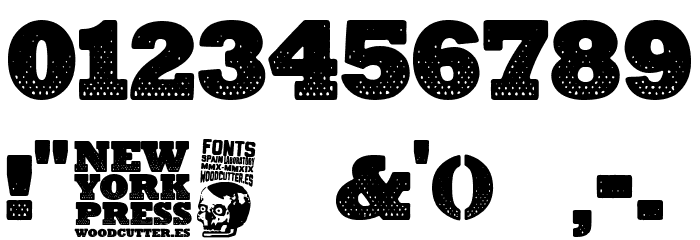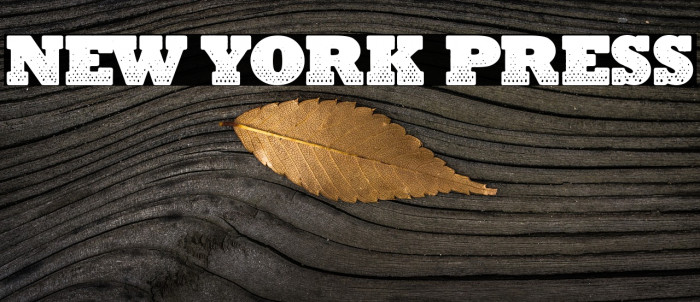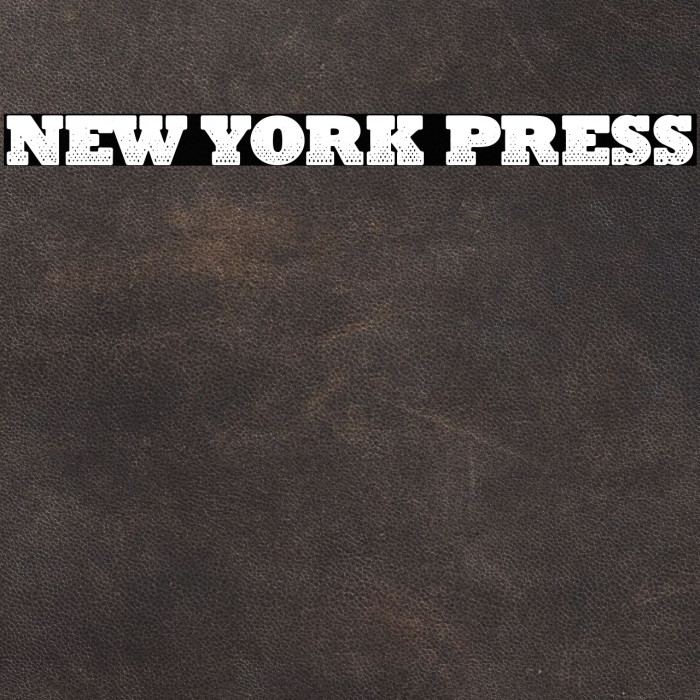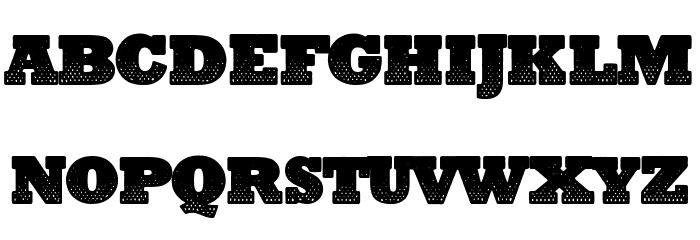
New York Press Font
This font features a bold, decorative style with a distinct vintage flair. The characters are heavily weighted with a dotted texture that adds a unique visual interest. The uppercase letters are robust and commanding, making them ideal for attention-grabbing headlines or titles. The numbers and special characters maintain the same boldness and texture, ensuring consistency across all uses. The overall design is reminiscent of old-school press typography, evoking a sense of nostalgia and classic charm.
A bold, decorative font with a vintage, dotted texture.
• Proposed Projects: Ideal for vintage-themed posters, retro branding, event invitations, and any project requiring a bold, nostalgic aesthetic.
• Category: Decorative/Display
• Bold: Yes
• Italic: No
• Weight: Bold
• Width: Normal
• Character Spacing: Normal
• Contrast: Medium
• Overall Style: Vintage
• Use Case: Headlines, Logos